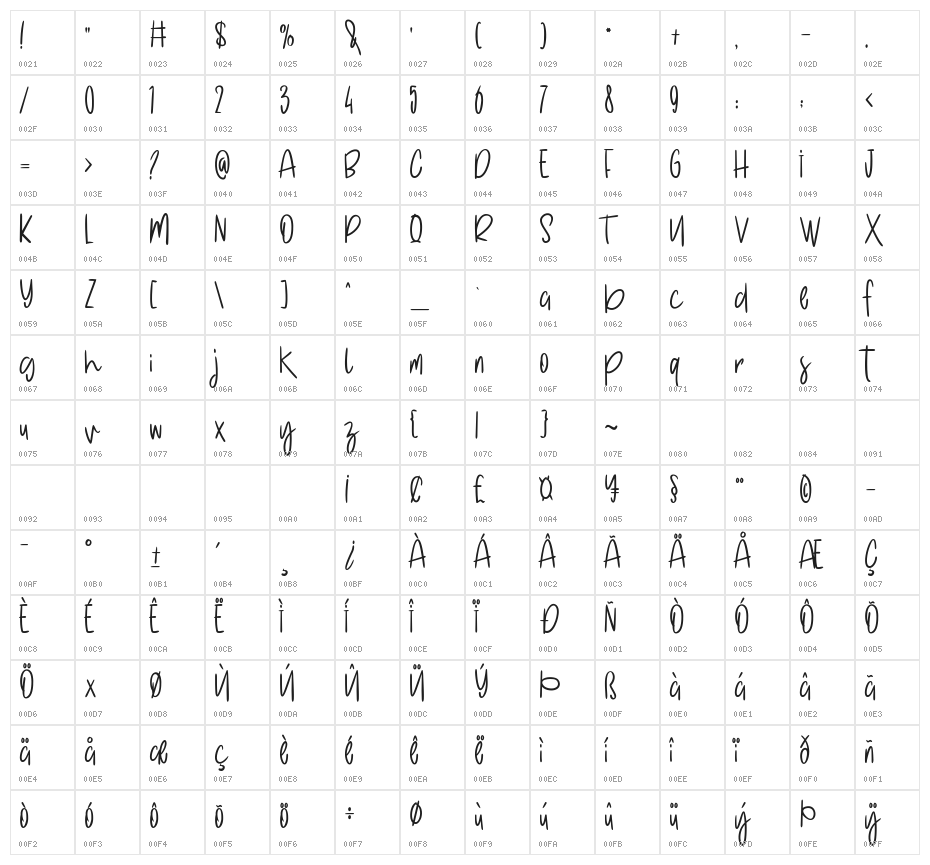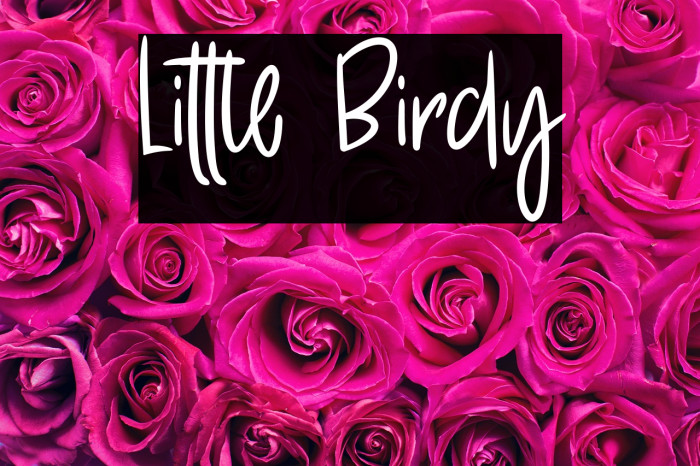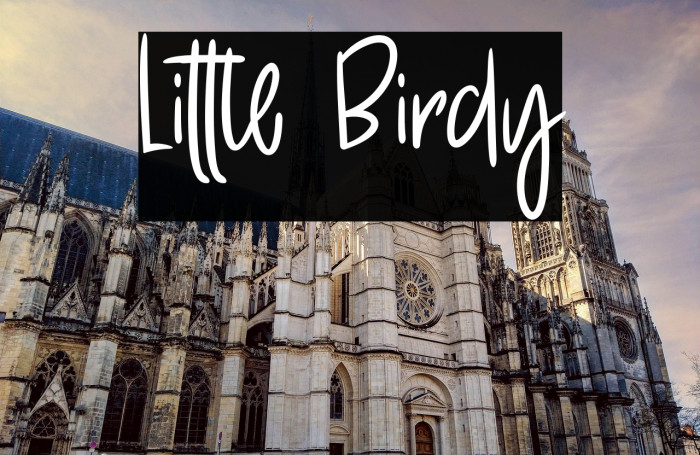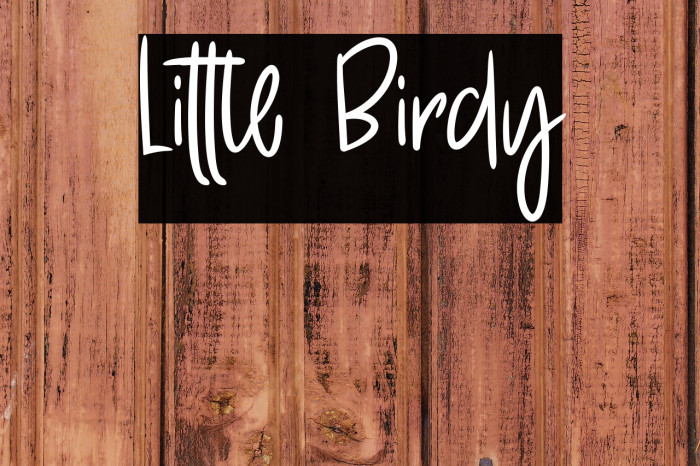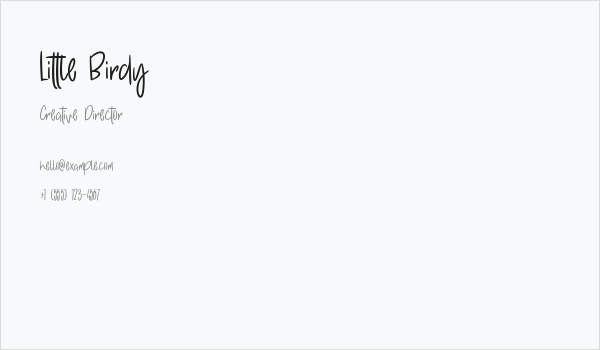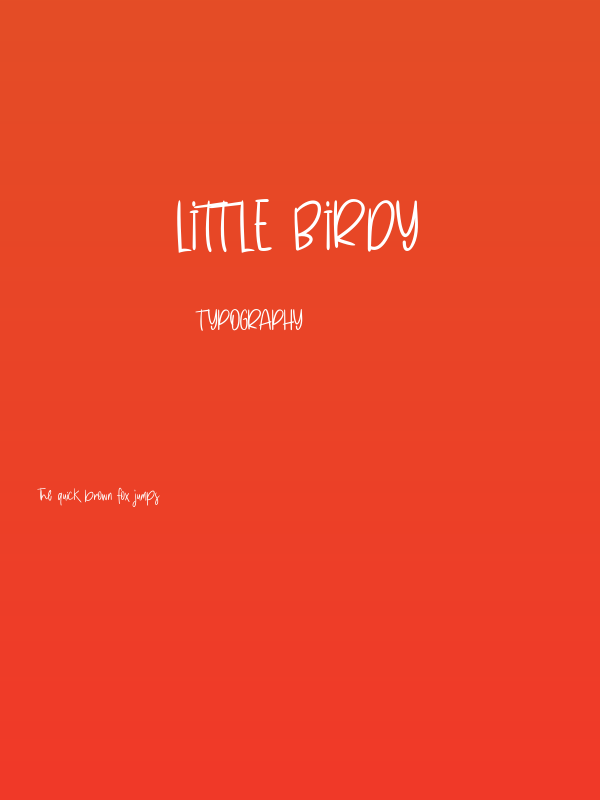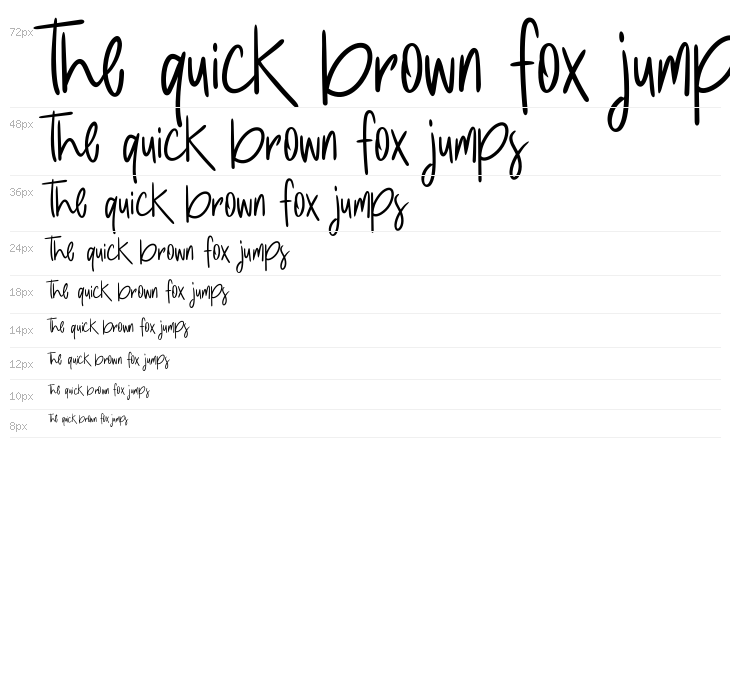
Little Birdy Font
Little Birdy Description
This playful and whimsical font features a handwritten style with a casual and friendly appearance. The letters are slightly slanted, giving it a dynamic and lively feel. The strokes are smooth and consistent, with a medium thickness that maintains readability while adding a touch of personality. The uppercase and lowercase letters are well-balanced, and the numbers and special characters are designed to complement the overall style. This font exudes a sense of fun and creativity, making it ideal for projects that require a personal and informal touch.
| Use Case | Logos, Headlines, Informal text |
| Proposed Projects | Great for greeting cards, children's books, playful branding, and social media graphics. |